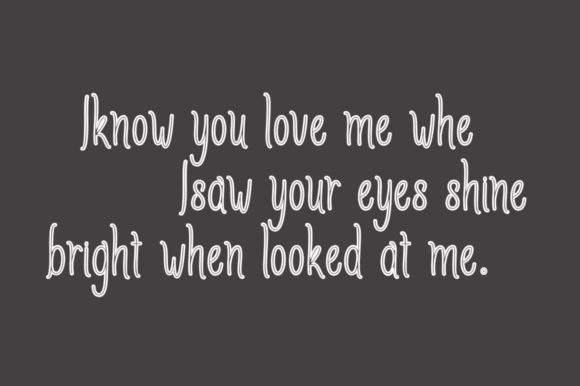
Amlight Family Font
Amlight is a lovely handwritten Font Family with a firm structure and very comfortable for the reader, also has a simple character. It is very suitable for official media such as banners, magazines, newspapers, books, and others.